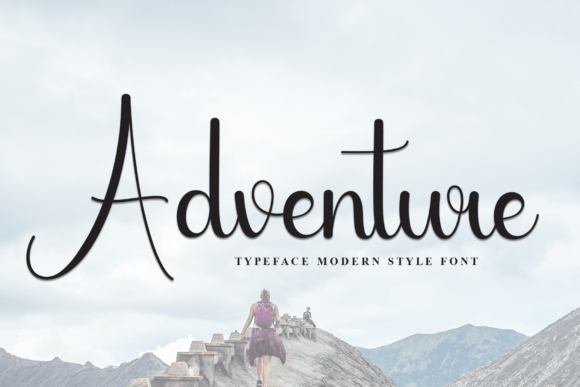
The Adventure Font: Elevating Designs with Elegance and Charm
Have you ever been in the middle of a design project, and suddenly, you’re stuck on finding the perfect font? I recall a recent experience where a client requested a sophisticated, elegant look for their branding, and I was on a mission to find the ideal match. That’s when I discovered the Adventure font – a stylish handwritten script font that exudes elegance and charm with its fluid, graceful strokes.
What I Love About Adventure Font
- ✨ Elegant and charming: Adventure font adds a personal and sophisticated touch to any design.
- ✅ Versatile: Suitable for branding, invitations, stationery, and more.
- 💫 Fluid strokes: The smooth curves and natural flow create a timeless, refined look.
- 🎨 Highly customizable: Supports OpenType features, glyphs, and stylistic alternates.
While Adventure font is an excellent choice, there are a few things to consider:
- ⚠️ Limited use in very formal or corporate designs: The font’s elegant nature might not fit very formal or corporate branding.
- 🤔 May require adjustment for large blocks of text: The font’s script nature might make it challenging to read in large paragraphs.
The Story Behind Adventure Font
Adventure font was designed with the intention of creating a elegant, yet approachable script font. The designer aimed to craft a font that would add a personal touch to various design projects, from branding to stationery. With its fluid strokes and natural flow, Adventure font has become a popular choice among designers and creative hobbyists.
Q: What type of projects is Adventure font best suited for?
A: Adventure font is ideal for branding, invitations, stationery, and any design project requiring an elegant, sophisticated touch.
Q: Does Adventure font support OpenType features?
A: Yes, Adventure font supports OpenType features, including ligatures, stylistic alternates, and glyphs.
Q: Is Adventure font difficult to read in large blocks of text?
A: As a script font, Adventure font may be challenging to read in large paragraphs. It’s best used for headings, titles, or short text passages.